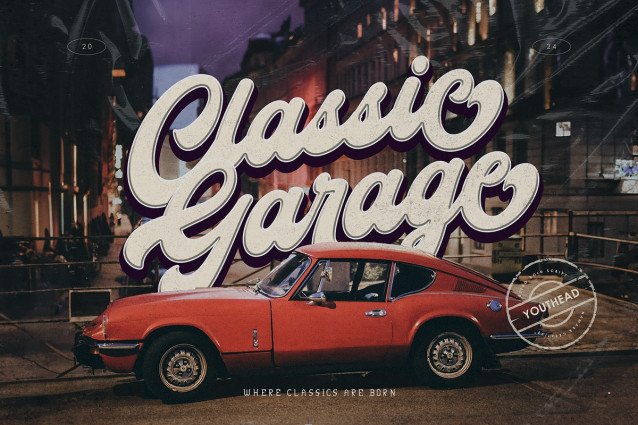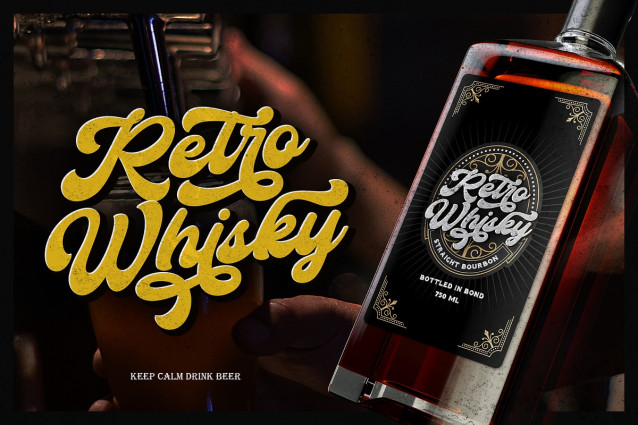
Youthead Retro Font
Youthead Retro Font – Retro Bold Script Typeface, The perfect blend of vintage charm and contemporary elegance. These fonts are designed to make a statement, combining the nostalgic essence of mid-20th-century typography with a fresh, modern twist.
Transform your designs with our retro bold script font. Make your project memorable and stylish with the unique charm of retro-modern typography.